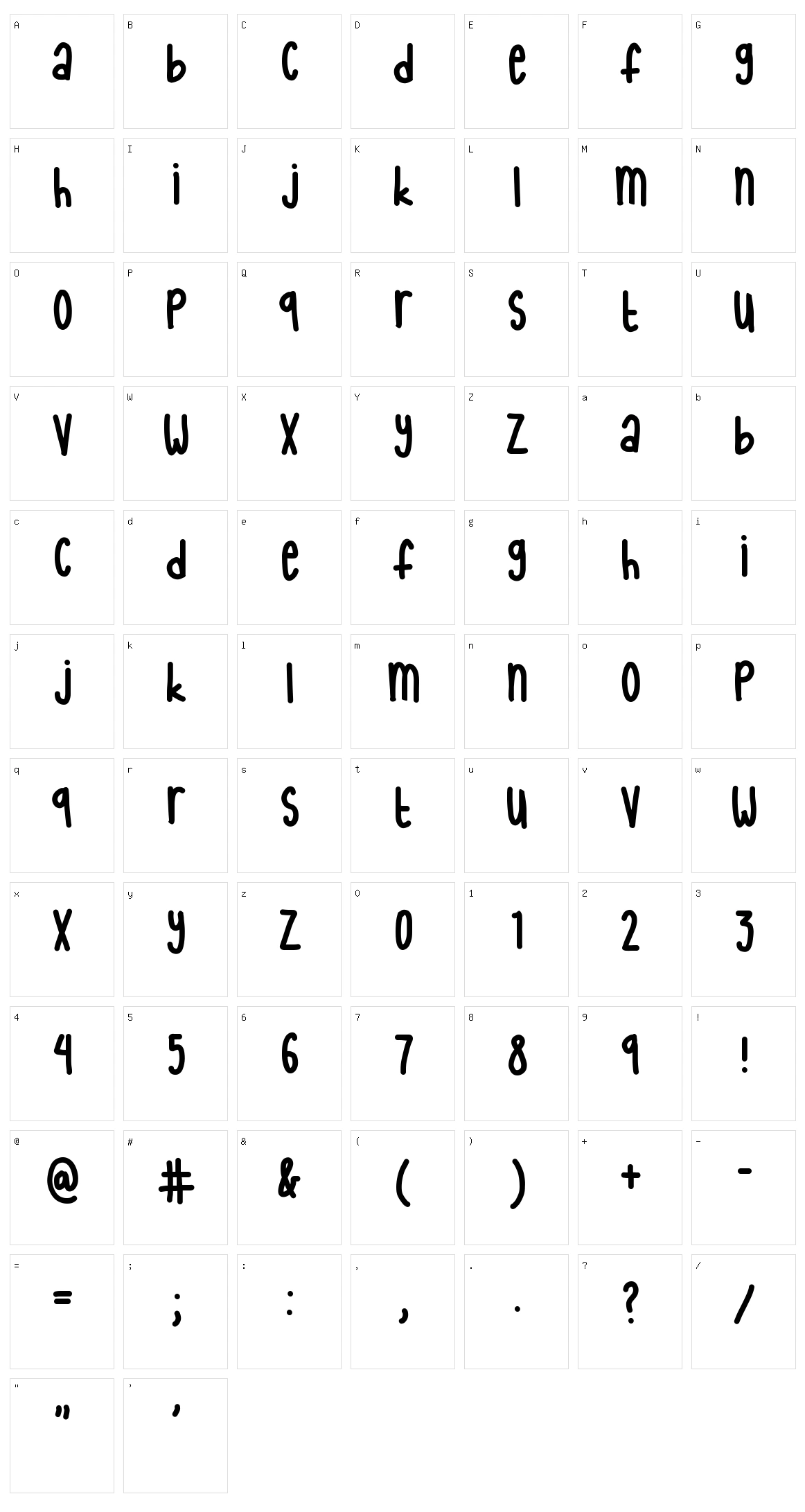
The free font Internet Friends is carefully designed by Geronimo Font Studios, showcasing a thoughtful balance of creativity and usability and falls under the Script font style. When you download the ZIP file, it contains only 10.01 KB of font files, making it lightweight and quick to download. Please review the license details below to understand permitted usage and distribution rights. If license information is not available, we recommend using this font for personal projects only or contacting the author directly for commercial usage permissions.